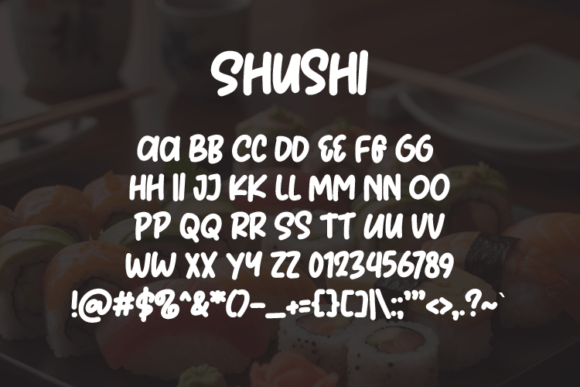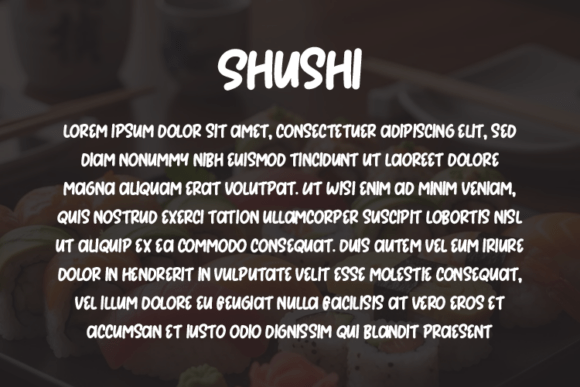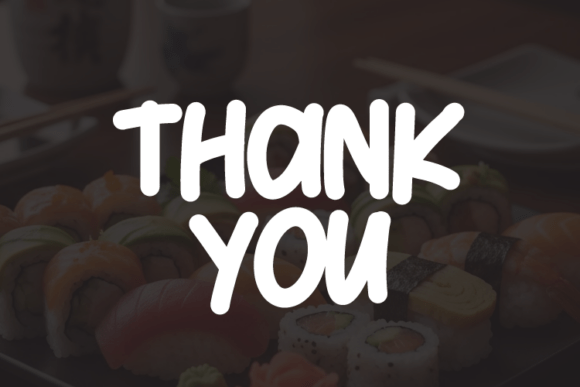
Introduction to Shushi Font
Have you ever been working on a creative project, pouring your heart and soul into the design, only to find that the font you chose is not quite right? The words blend together, and the message gets lost in the clutter. That’s where the Shushi Font comes in – a modern and elegant typeface designed to make your work shine.
Key Features of Shushi Font
- High-quality design resource with a unique, creative touch, perfect for various projects.
- Includes a range of characters, including uppercase and lowercase letters, numbers, and special symbols.
- Designed with a modern aesthetic, ideal for use in digital and print-based creative projects.
Honest Review: Shushi Font
As a designer, I’ve had the pleasure of working with various design resources, and the Shushi Font is one of the standout options I’ve come across. For free downloads, it’s impressive to see the level of quality that goes into creating a font like this.
The Shushi Font is a great addition to any creative project that requires a unique and eye-catching typography. The font’s versatility makes it suitable for a wide range of applications, from branding to editorial design. One of the standout features of the Shushi Font is its transparent background, which allows for seamless integration with other design elements.
- High-quality design and crisp lines
- Perfect for creative projects that require a unique touch
- May not be suitable for formal or traditional designs
- Limited font styles and weights
- May require adjustments for optimal readability
Overall, I’m impressed with the Shushi Font, and it’s definitely a great addition to my design resource library. While it may have some limitations, its unique qualities and high-quality design make it a valuable asset for any creative project.
The Shushi Font is ideal for a variety of creative projects, including graphic design, digital art, and even logo design. Its unique design and transparent background make it a great choice for projects where you want to add a touch of elegance and sophistication.